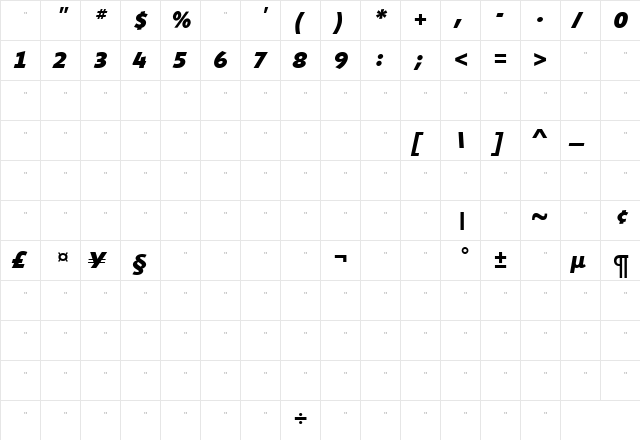
ShinnExtraBoldItalicTab Regular Font Preview
ShinnExtraBoldItalicTab Regular
ShinnExtraBoldItalicTab Regular Font Details
Design Context for ShinnExtraBoldItalicTab Typeface
ShinnExtraBoldItalicTab is a composed and adaptable typeface that performs quietly and consistently across a wide range of design contexts. The dynamic lean of this cut emphasises speed and emphasis in any layout. Its bold stroke weight gives it real presence on the page.